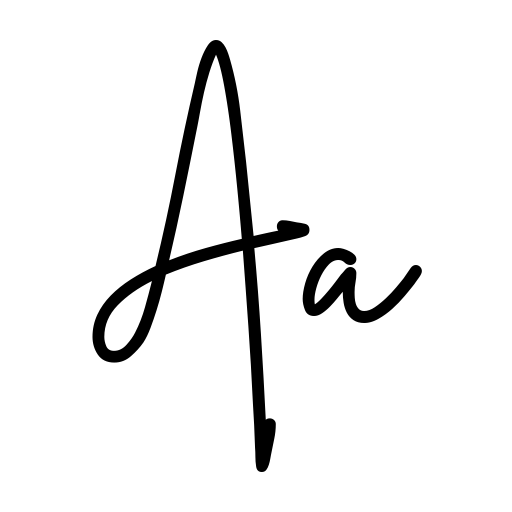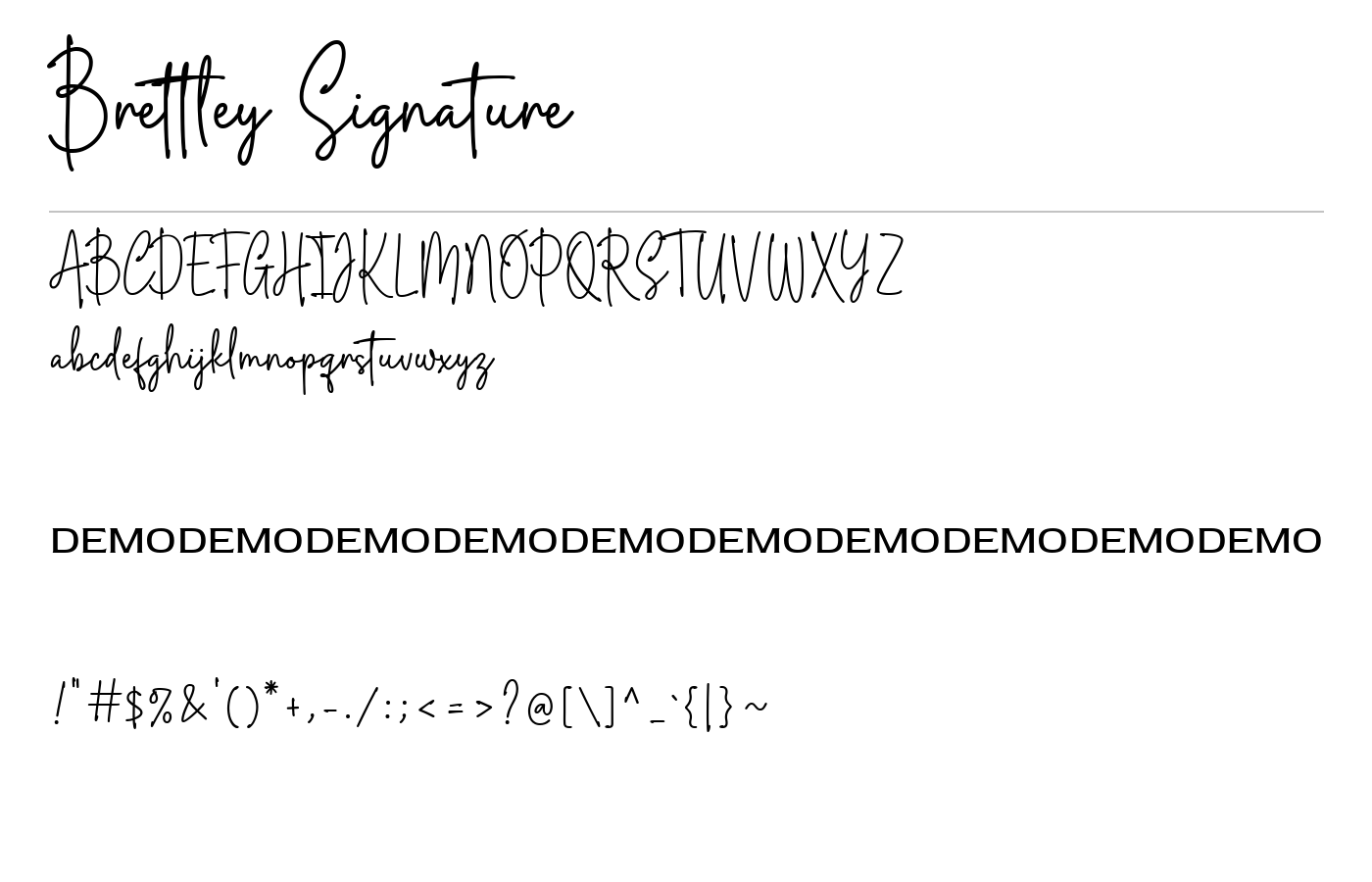
Brettley Signature is a delicate, handwritten script font with a slender, airy feel that evokes elegance and personal charm. Its tall, narrow letterforms and smooth, flowing strokes make it perfect for branding, invitations, and creative projects that seek a stylish yet approachable touch. This font works especially well for designs needing a modern, sophisticated signature look.
Brettley Signature Font
About Brettley Signature Font